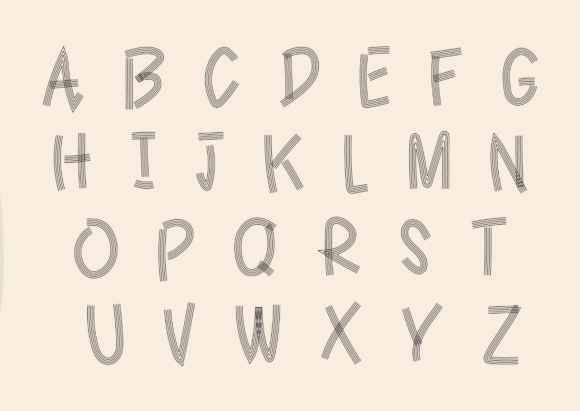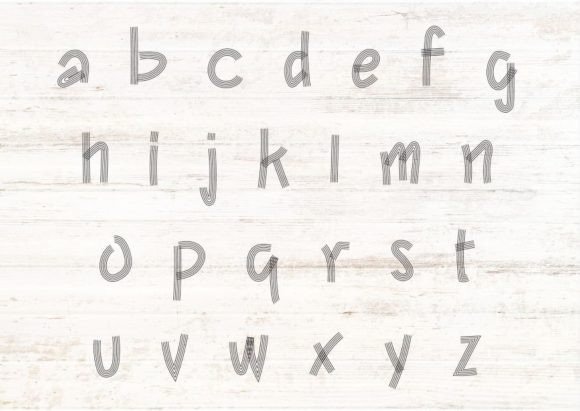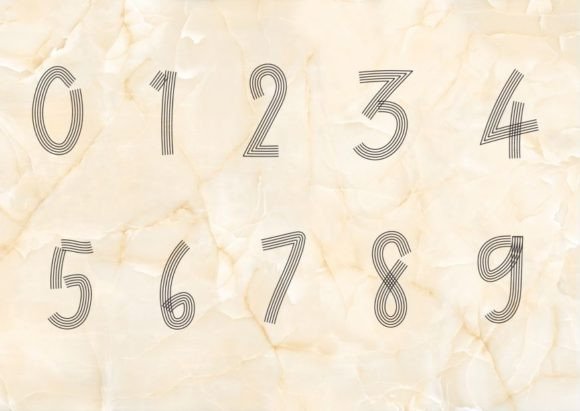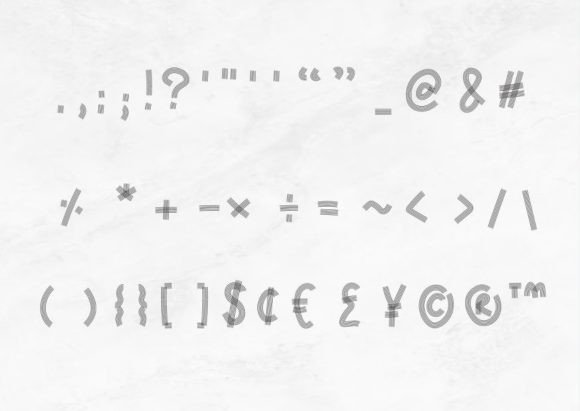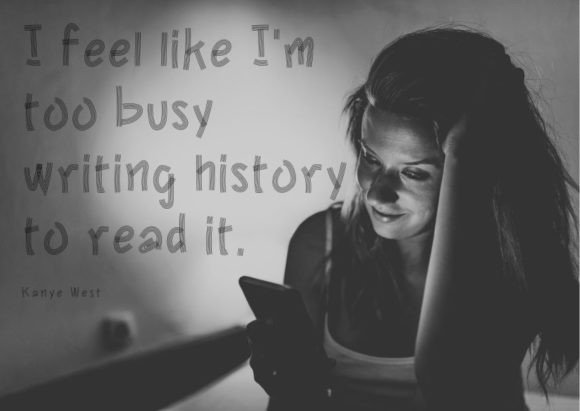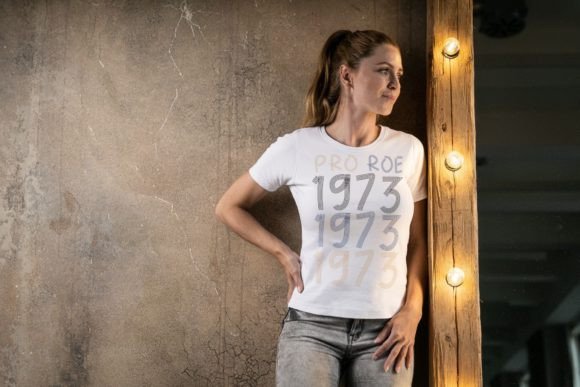
Cordy Font: Elevate Your Designs with a Unique Display Font
Are you tired of using the same old fonts in your designs? Look no further than Cordy Font, a creative and unique display font that’s perfect for adding a personal touch to your projects. With its distinctive line pattern, Cordy Font is sure to make your text and quotes stand out on products like mugs, shirts, and more.
What is Cordy Font?
Cordy Font is a display font that features a creative line pattern, giving it a one-of-a-kind look that’s perfect for informal text and quotes. The font’s unique design makes it ideal for use on products like mugs, shirts, and other promotional items. Whether you’re a designer, crafter, or DIY enthusiast, Cordy Font is a great addition to your font collection.
Key Features of Cordy Font
- Unique Line Pattern: Cordy Font features a distinctive line pattern that sets it apart from other fonts.
- Informal Text and Quotes: The font is perfect for use on informal text and quotes, making it ideal for products like mugs, shirts, and other promotional items.
- Display Font: Cordy Font is a display font, making it perfect for use in headlines, titles, and other prominent text.
- Easy to Read: Despite its unique design, Cordy Font is easy to read, making it perfect for use on a variety of products.
Uses for Cordy Font
Cordy Font is a versatile font that can be used on a variety of products and in a range of design applications. Here are some ideas for using Cordy Font:
- Mugs and Shirts: Use Cordy Font to add a personal touch to mugs, shirts, and other promotional items.
- Signs and Posters: The font’s unique design makes it perfect for use on signs and posters.
- Social Media Graphics: Use Cordy Font to add a creative touch to your social media graphics.
- Party Decorations: The font’s playful design makes it perfect for use on party decorations, such as banners and garlands.
Tips for Using Cordy Font
Here are some tips for getting the most out of Cordy Font:
- Use it Sparingly: Cordy Font is a display font, so it’s best to use it sparingly to add emphasis to your text.
- Pair it with Other Fonts: Experiment with pairing Cordy Font with other fonts to create a unique look.
- Experiment with Colors: The font’s unique design makes it perfect for use with a range of colors and textures.
Cordy Font is a unique and creative display font that’s perfect for adding a personal touch to your designs. With its distinctive line pattern and easy-to-read design, Cordy Font is ideal for use on a range of products, from mugs and shirts to signs and posters. Whether you’re a designer, crafter, or DIY enthusiast, Cordy Font is a great addition to your font collection.
Get Creative with Cordy Font